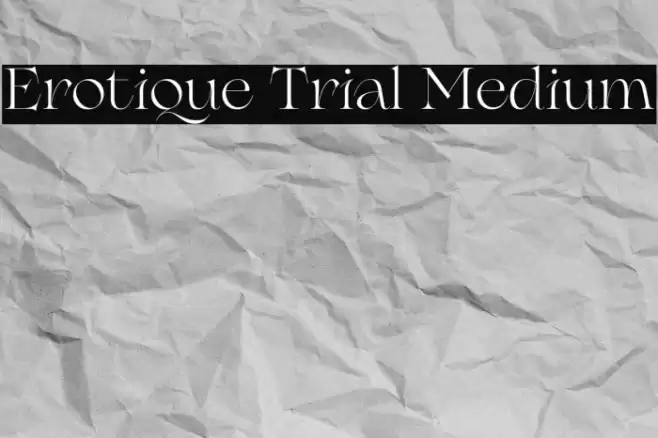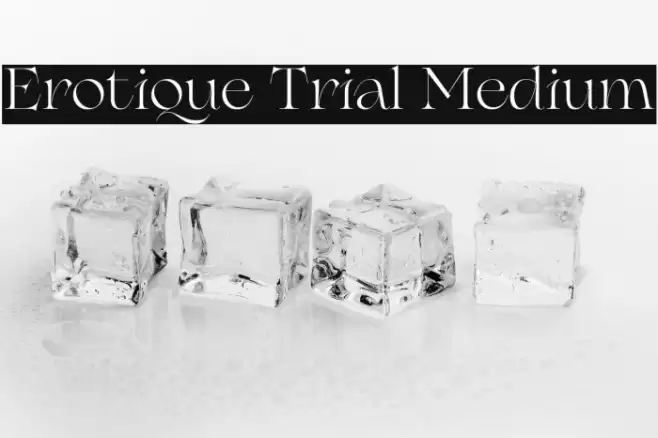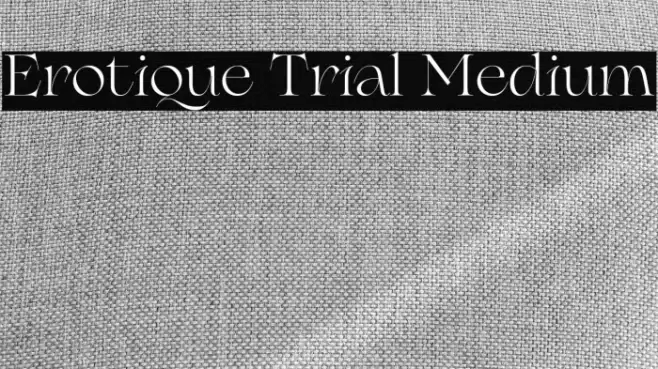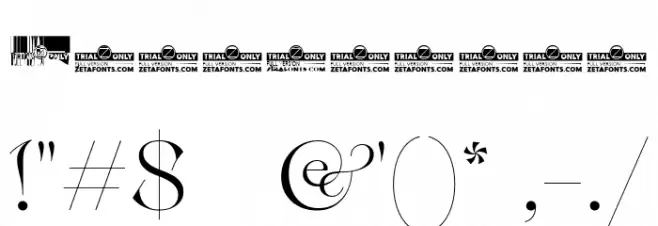
Erotique Trial Medium Font
Erotique Trial Medium Description
This font exudes elegance and sophistication with its high contrast and stylish serifs. The uppercase letters are characterized by sharp, angular serifs and a refined, elongated form, while the lowercase letters maintain a graceful flow with subtle curves. The numerals and special characters complement the overall aesthetic, featuring similar high contrast and distinctive shapes. This font is designed to capture attention with its unique blend of classic and modern elements, making it suitable for a variety of creative applications.
An elegant serif font with high contrast and stylish, angular serifs from Regular fonts.
- Proposed Projects: Ideal for luxury branding, editorial design, fashion magazines, and elegant invitations.
- Use Case: Headlines, Logos, Editorial design